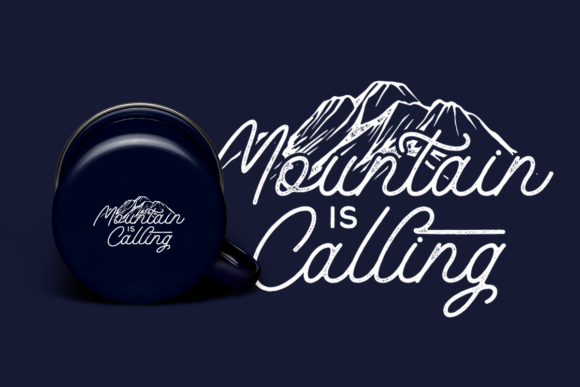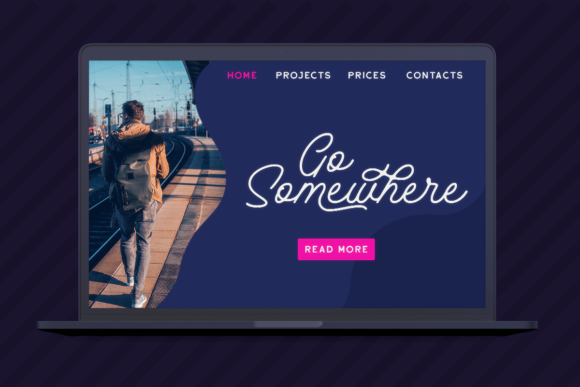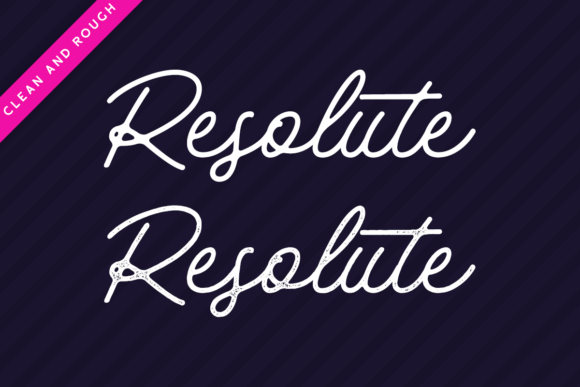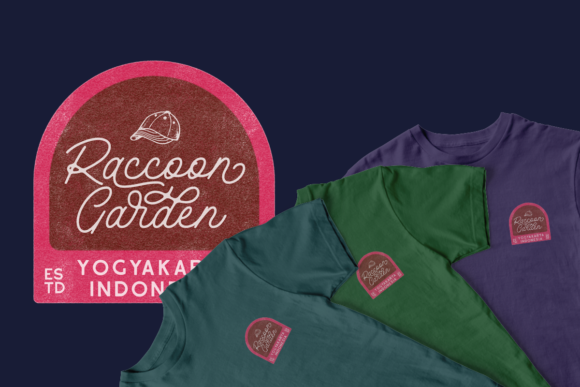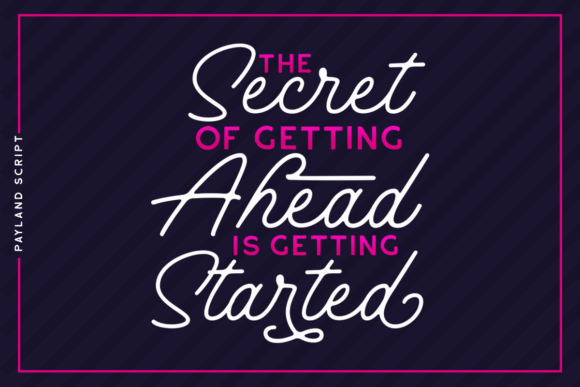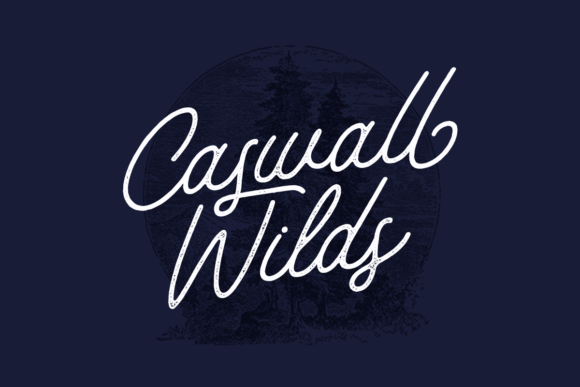
Introduction to Payland Font Font
Fonts play a crucial role in design, and the Payland Font font is a typeface that brings both character and versatility to any project. Whether you’re working on a branding project, a website, or a print design, the Payland Font font offers a unique style that can elevate your work.
Payland is a gorgeous script with a friendly feel.
Use it to turn any design idea into a true standout .
Key Features of Payland Font Font
• ✅ High-quality typeface designed for professional use
• ✅ Includes a wide range of glyphs and characters
• ✅ Ideal for logos, branding, websites, and print
Why Choose Payland Font Font?
The Payland Font font is more than just a typeface – it’s a design tool that helps you communicate your message with style and clarity. Its unique character set and versatile design make it suitable for a wide range of applications, from elegant invitations to bold headlines.
With its carefully crafted letterforms and balanced proportions, the Payland Font font ensures readability and visual appeal across all mediums.
What makes Payland Font font special?
The Payland Font font stands out with its unique design, exceptional readability, and versatility across various design applications.